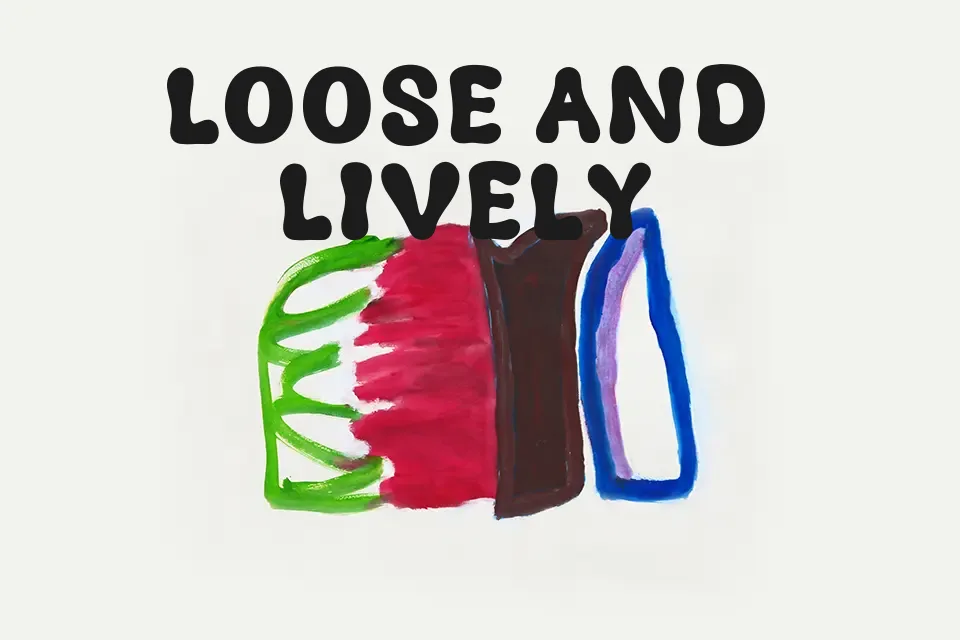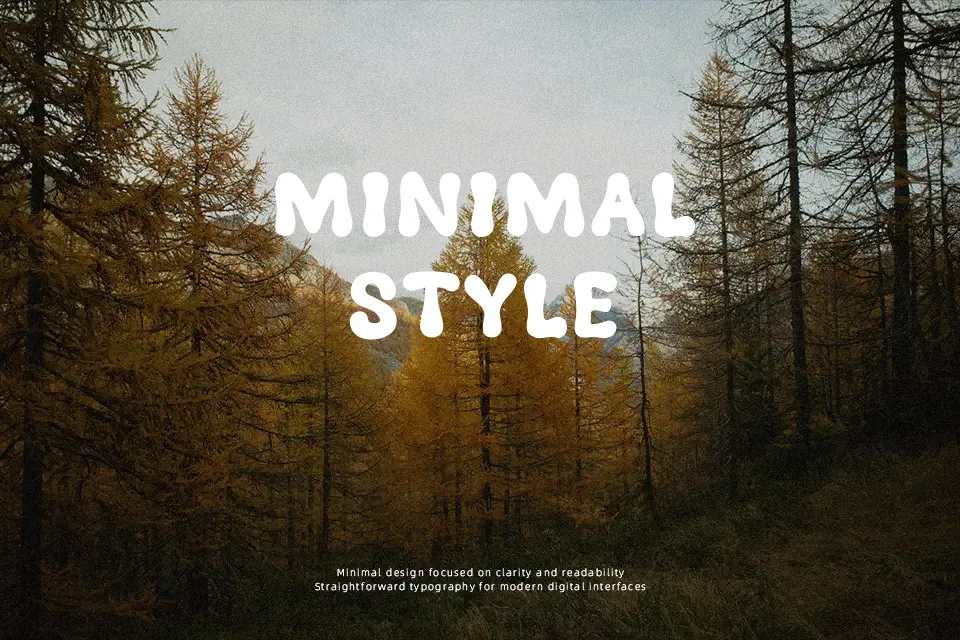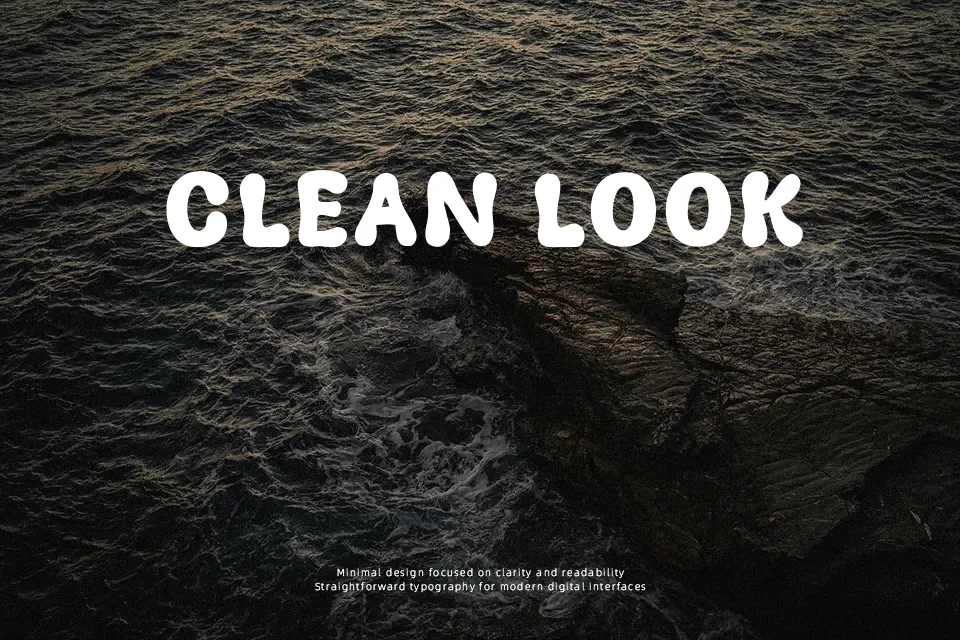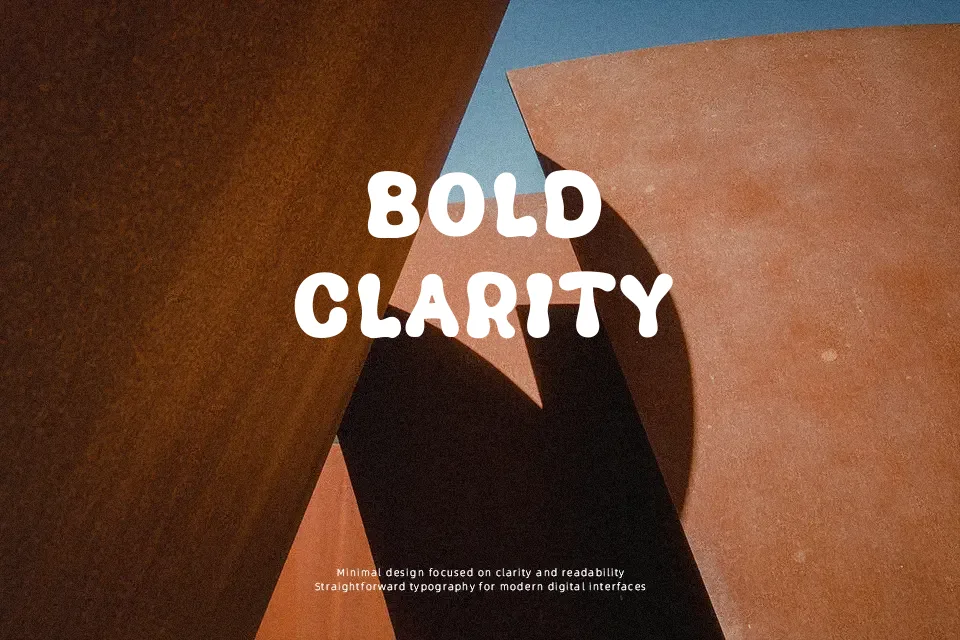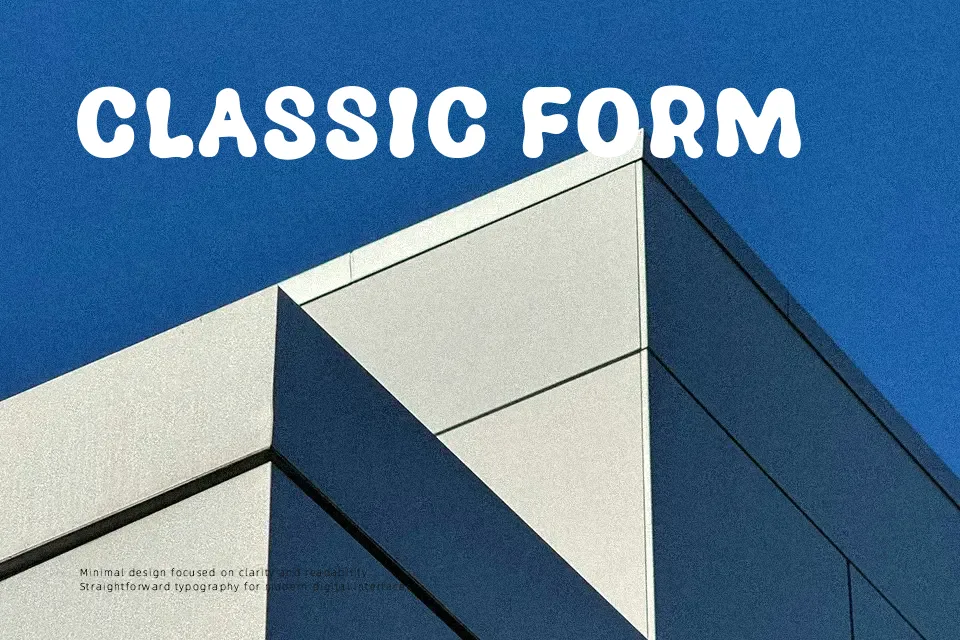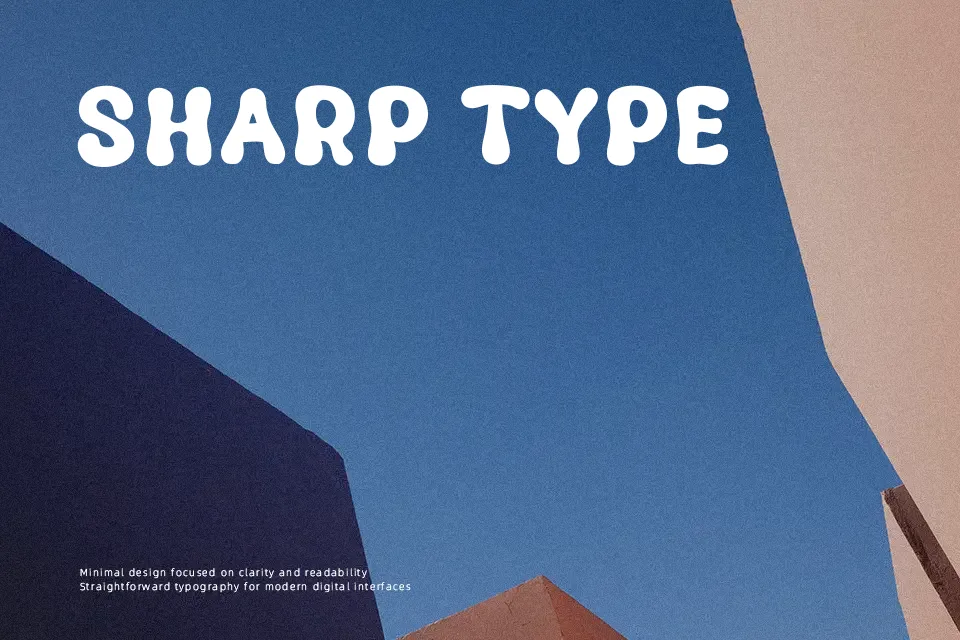
New Pizza Font
Letters in this font are drawn with heavy, even strokes and softly rounded outlines, creating chunky cartoon shapes that feel casual and hand-rendered. Character spacing appears fairly tight, so words form dense, solid lines that stand out at display sizes rather than in continuous reading. The simple stroke construction keeps each glyph recognizable when used for short titles and labels, but prolonged text or very small captions may start to feel crowded and lose clarity. It performs well for playful headlines and food-related graphics, where the bold silhouettes help messages read quickly from a distance. Overall, it offers friendly impact more than refined text flow.
restaurant menu headings,children’s event posters,casual logo wordmarks,social media promo graphics
long paragraph text,formal business reports,small ui labels,technical documentation
Perfect for headline, logo, and packaging, with a bold and cartoon style.